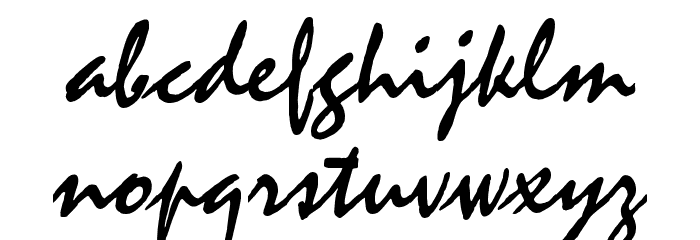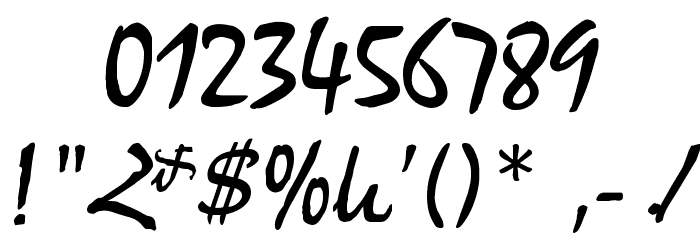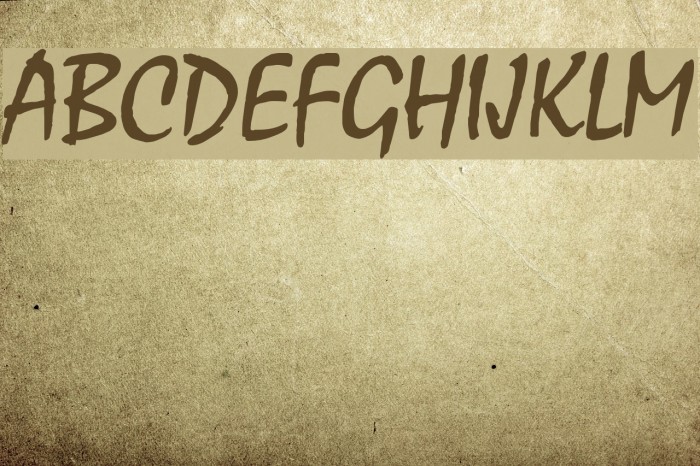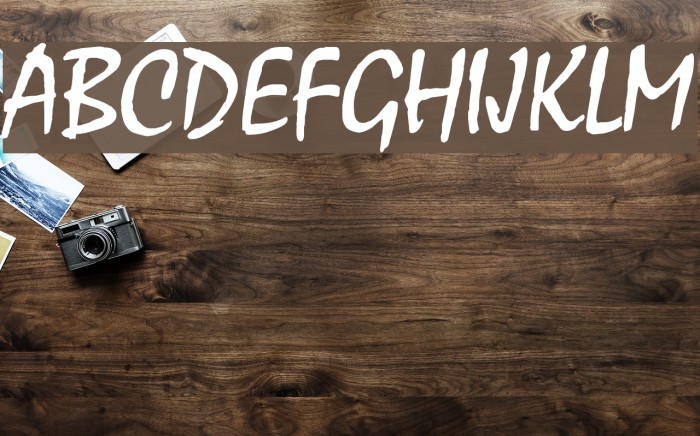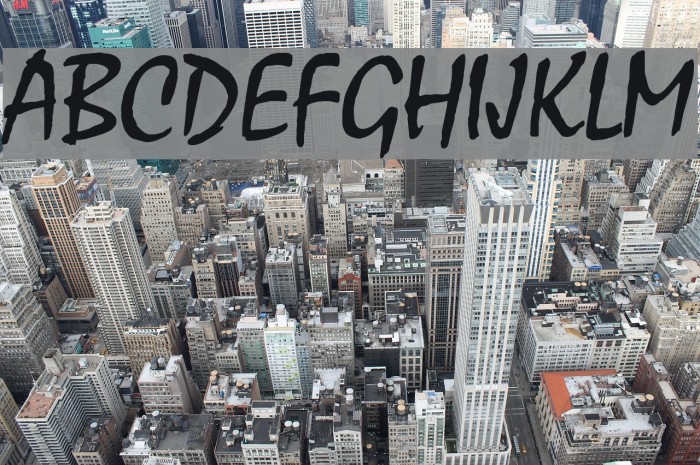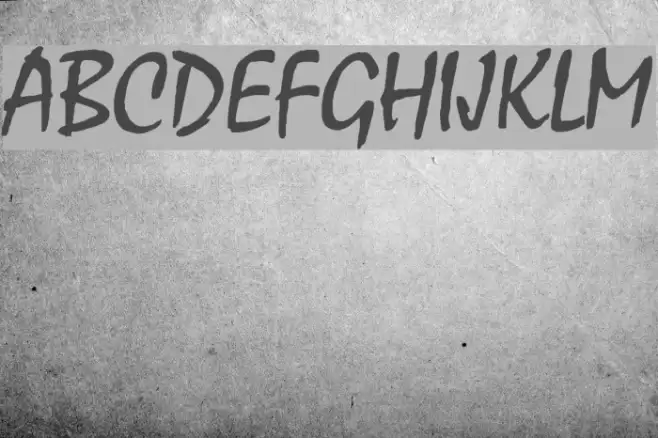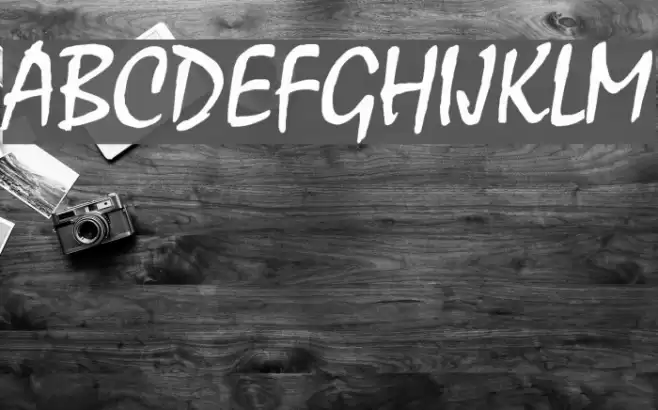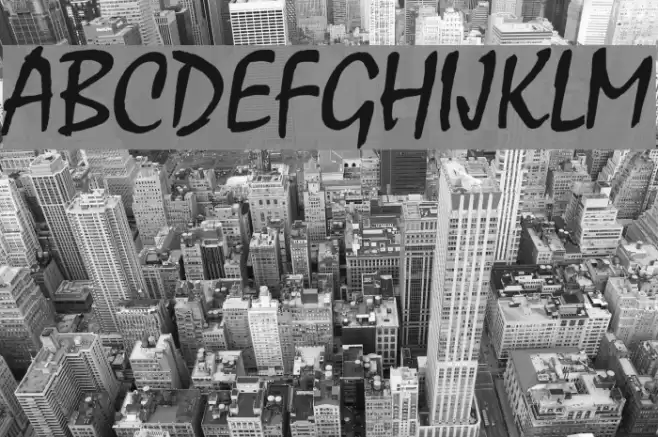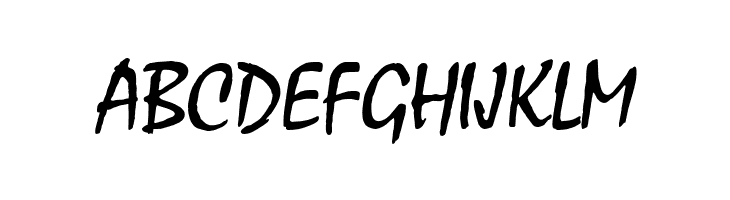
ArTarumianAnpuit Font
This font features a dynamic and energetic handwritten style, characterized by its bold and expressive strokes. The uppercase letters are tall and slightly slanted, giving a sense of movement and fluidity. The lowercase letters maintain a consistent flow, with some characters extending below the baseline, adding to its casual and informal appearance. The numerals are clear and legible, matching the overall style of the alphabet. Special characters are integrated seamlessly, maintaining the font's cohesive look. This font exudes a sense of creativity and spontaneity, making it suitable for projects that require a personal touch.
A bold, handwritten font with dynamic and expressive strokes.
- Proposed Projects: Ideal for creative projects such as greeting cards, invitations, personal branding, and artistic posters.
- Use Case: Logos, Headlines, Artistic projects